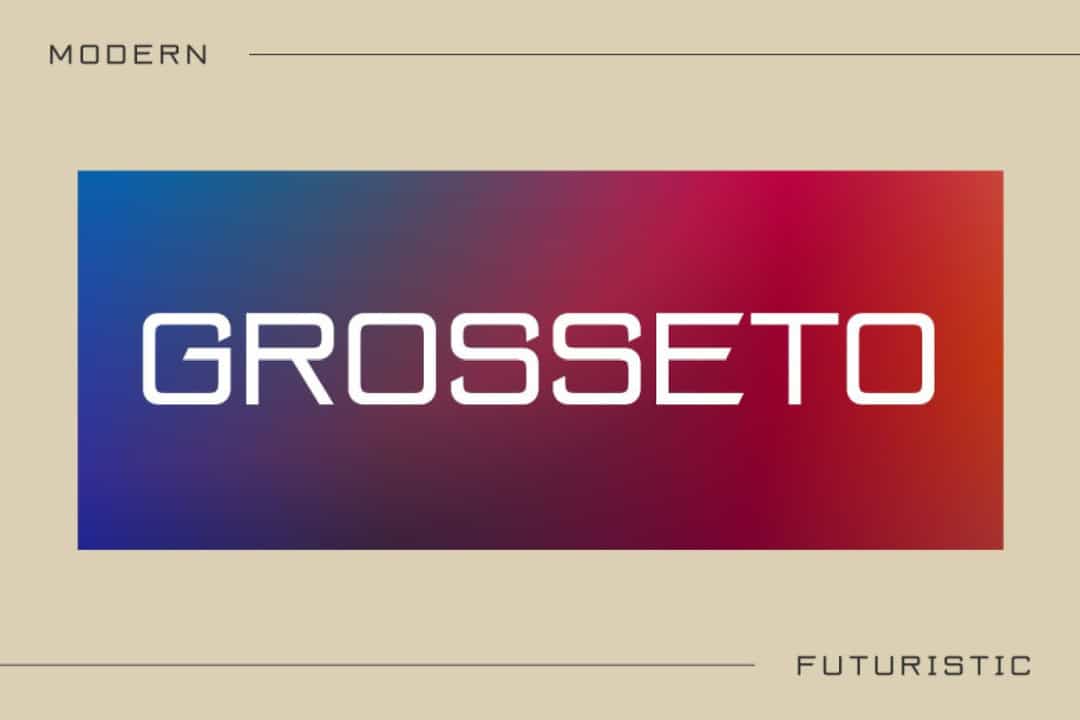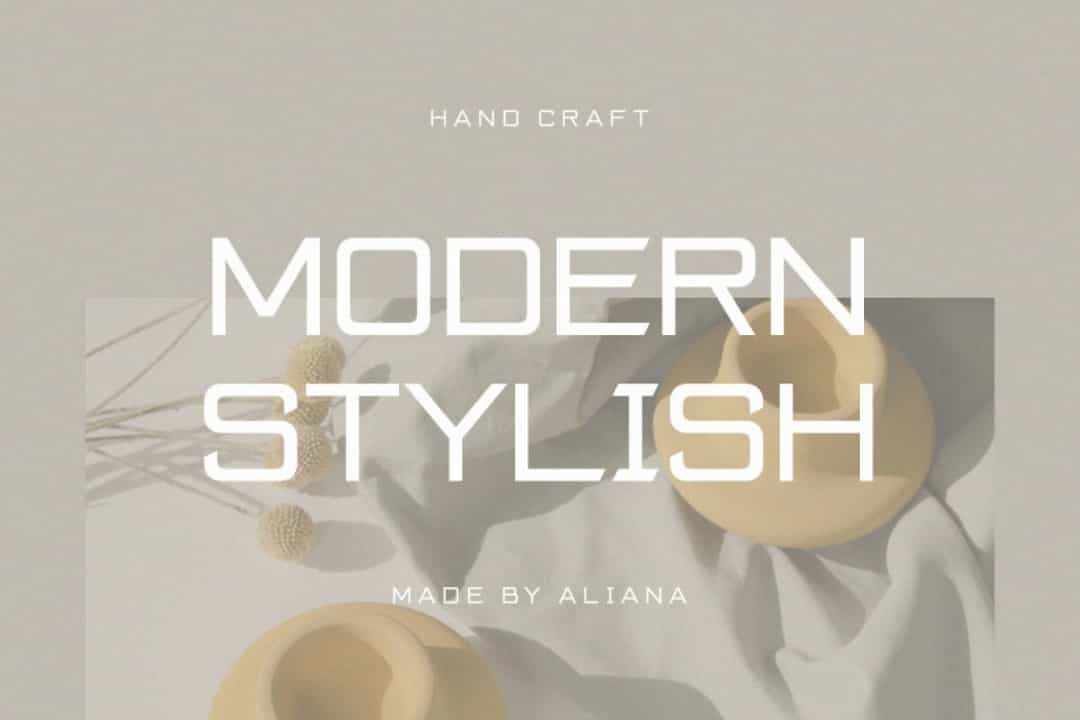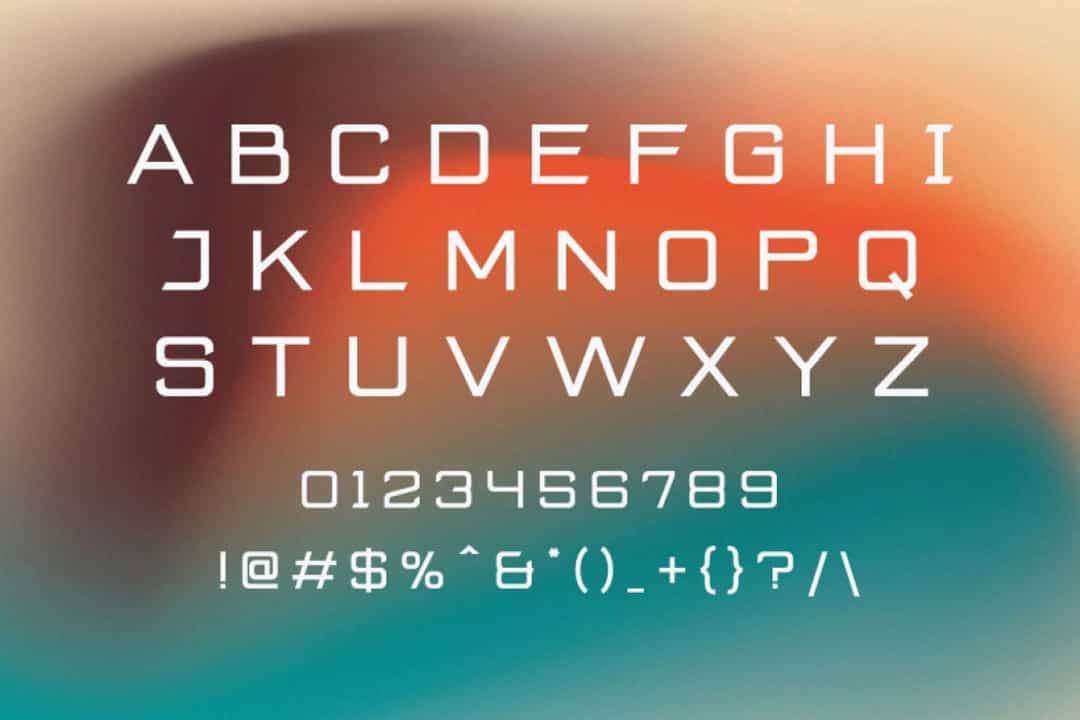
Grosseto is an innovative and contemporary sans serif font that makes an eye-catching backdrop for logos, headings in advertising magazines, packaging for products and invitations. It features both straight edges and smooth curves to bring an added quality to any project.